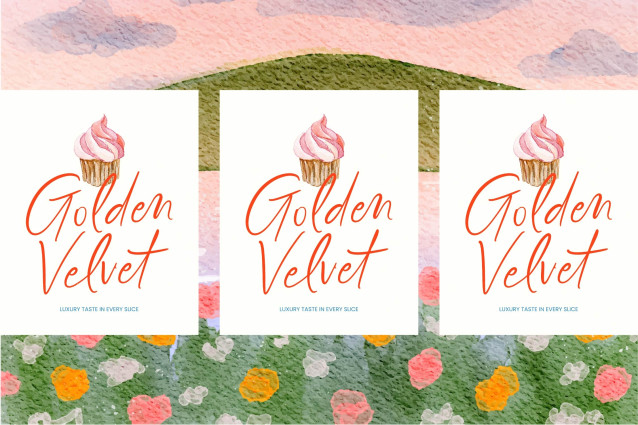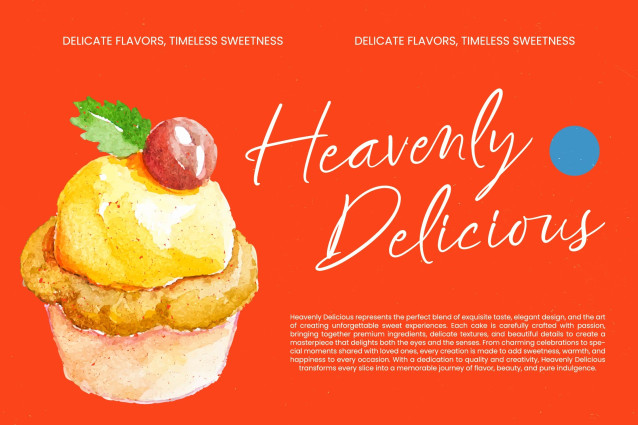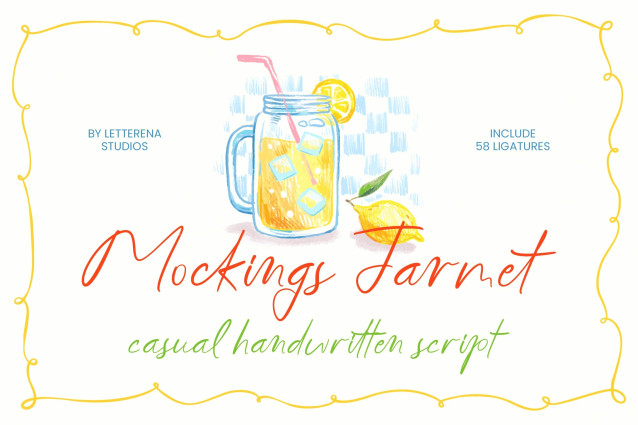
Mockings Jarmet – Casual Handwritten Script embodies a refined yet relaxed aesthetic, perfect for modern creators seeking a handcrafted typeface with a fluid rhythm. This font delivers an authentic pen-to-paper feel that instantly adds a human touch to any digital project, utilizing expressive ligatures to capture a sense of spontaneity that is both approachable and sophisticated.
Elevate your brand identity with unparalleled character and professional finesse. This font is the ideal application for luxury branding, social media graphics, and boutique packaging. Mockings Jarmet – Casual Handwritten Script is perfect for wedding invitations, logo design, and lifestyle editorial layouts where a personal connection is paramount. Its versatile letterforms ensure your message remains legible while maintaining a high-end artisanal vibe that resonates with discerning global audiences.